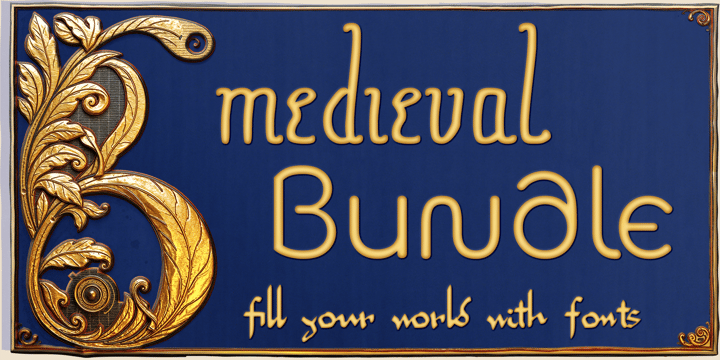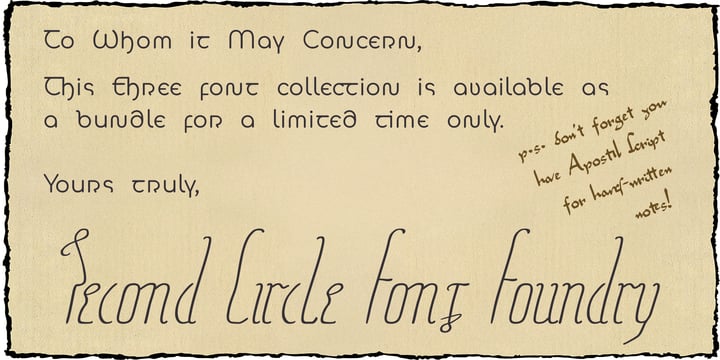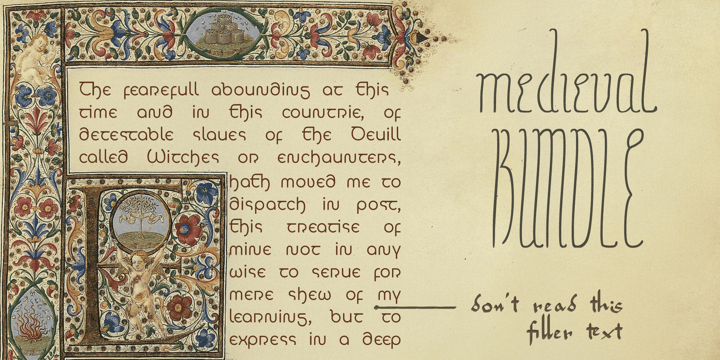
Medieval Bundle
This bundle features three fonts that draw on styles and letterforms used by European scribes in the 7th to 15th centuries. Ligatures and stylistic alternates let you tailor your text to have a more (or less) archaic feel by choosing features like: Long-S, thorn (TH), insular letters G and T, the archaic Latin "et" character, Tironian shorthand characters, and more!
New Insulaic is your workhorse font, reimagining the rounded shapes of medieval Irish and English works like the Book of Kells with a clean geometric design, producing a clean and legible font with an ancient mystical vibe.
Signum Regis is your title font, inspired by the grand signatures of European kings and emperors during the Carolingian and Holy Roman Empires. With long flourishes and swooping ascenders and descenders, this font is perfect for banners and headlines (or extremely fancy signatures)!
Apostil Script is your small font, designed to look like the rushed notes written in the margins of ancient religious folios or magical grimoires. Slightly cramped and packed with authentic medieval abbreviations and ligatures, marginalia written in Apostil Script instantly convey backstory.
The fonts in the Medieval Bundle are the perfect way enhance props, costumes, and accessories associated with ancient magical texts and the wisdom of elder civilizations. Whether you are cosplaying Edward Kelley at an upcoming convention, or creating clues for adventurers in your next RPG campaign, let these fonts add depth to your worldbuilding.